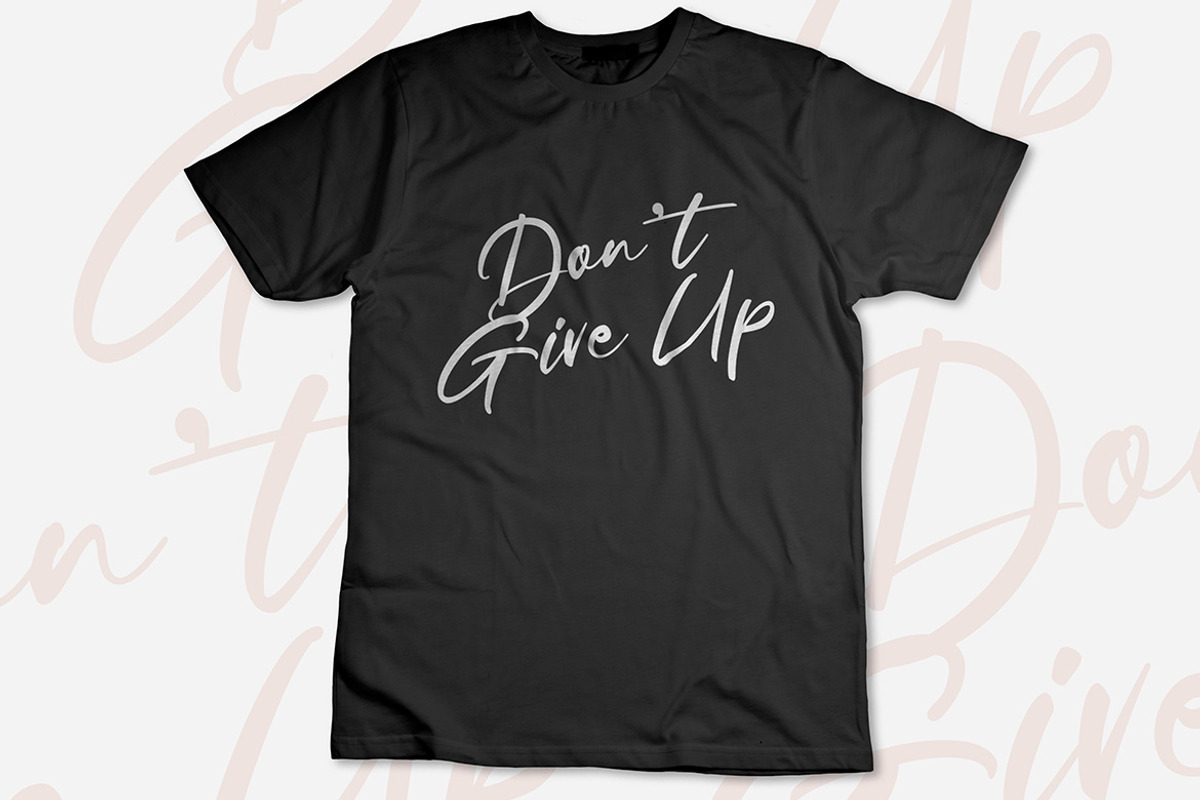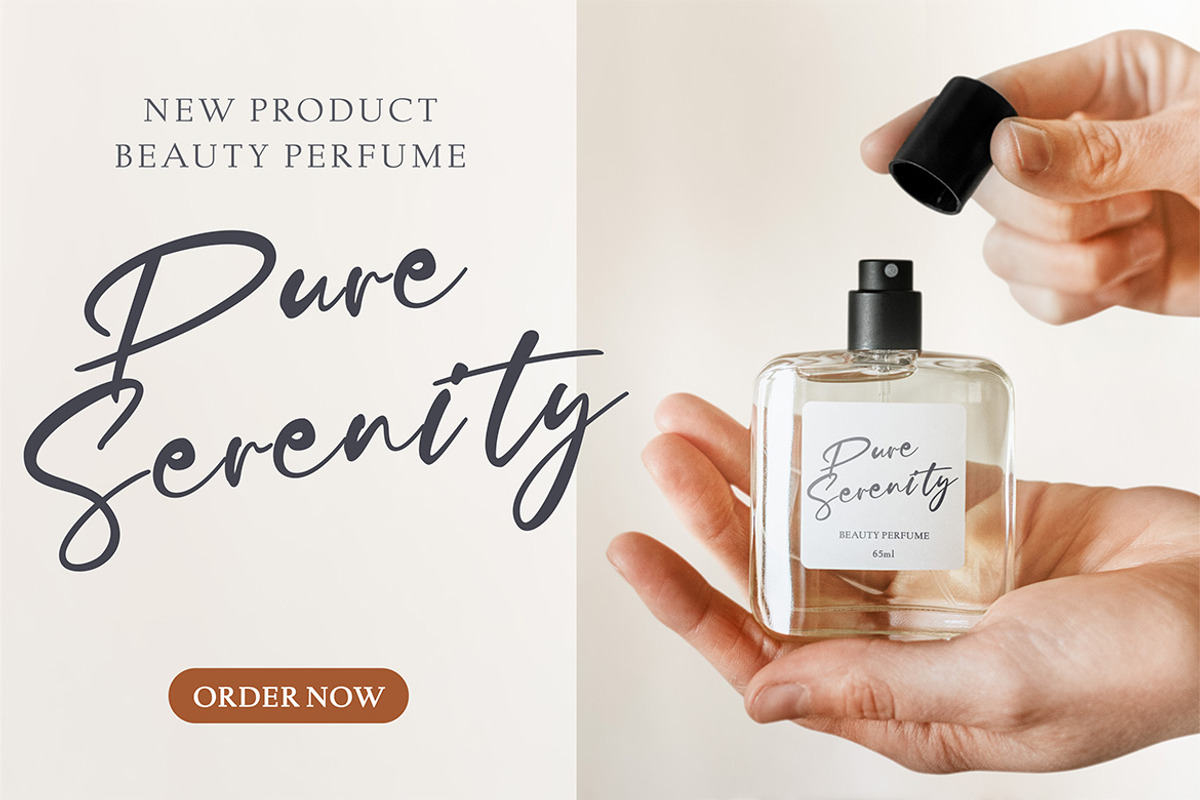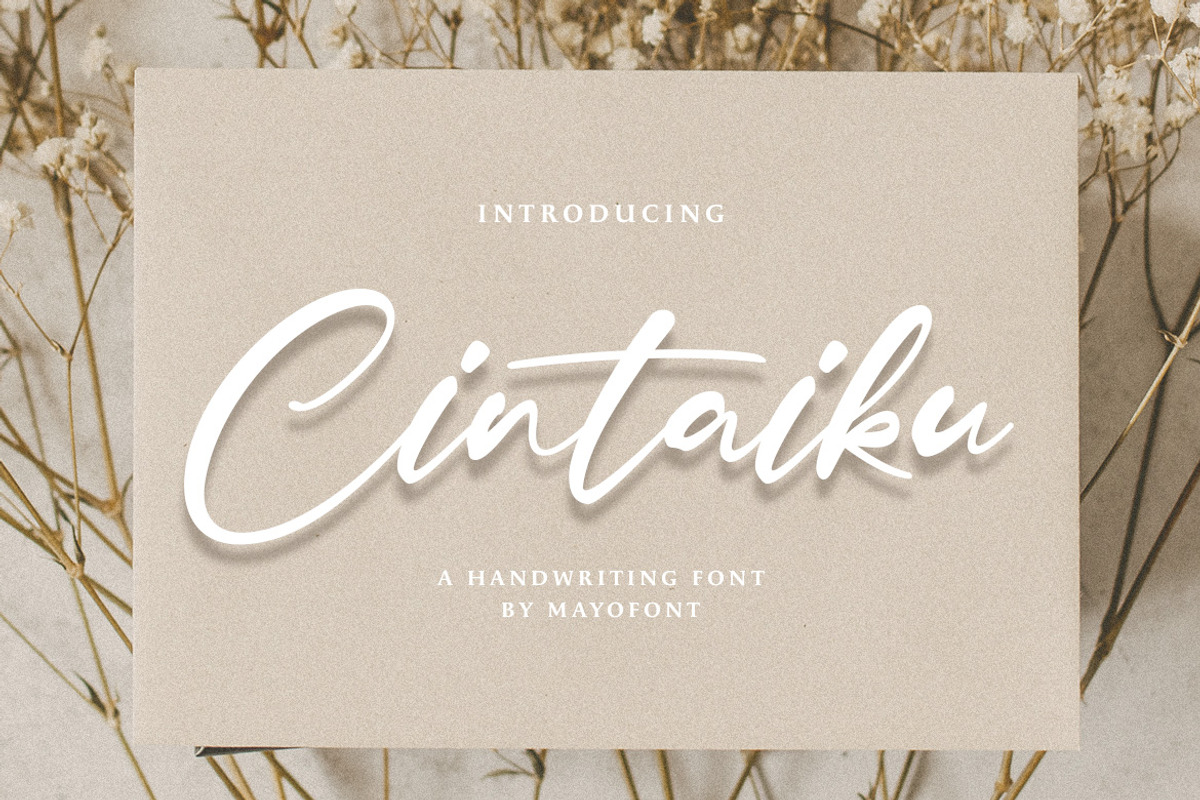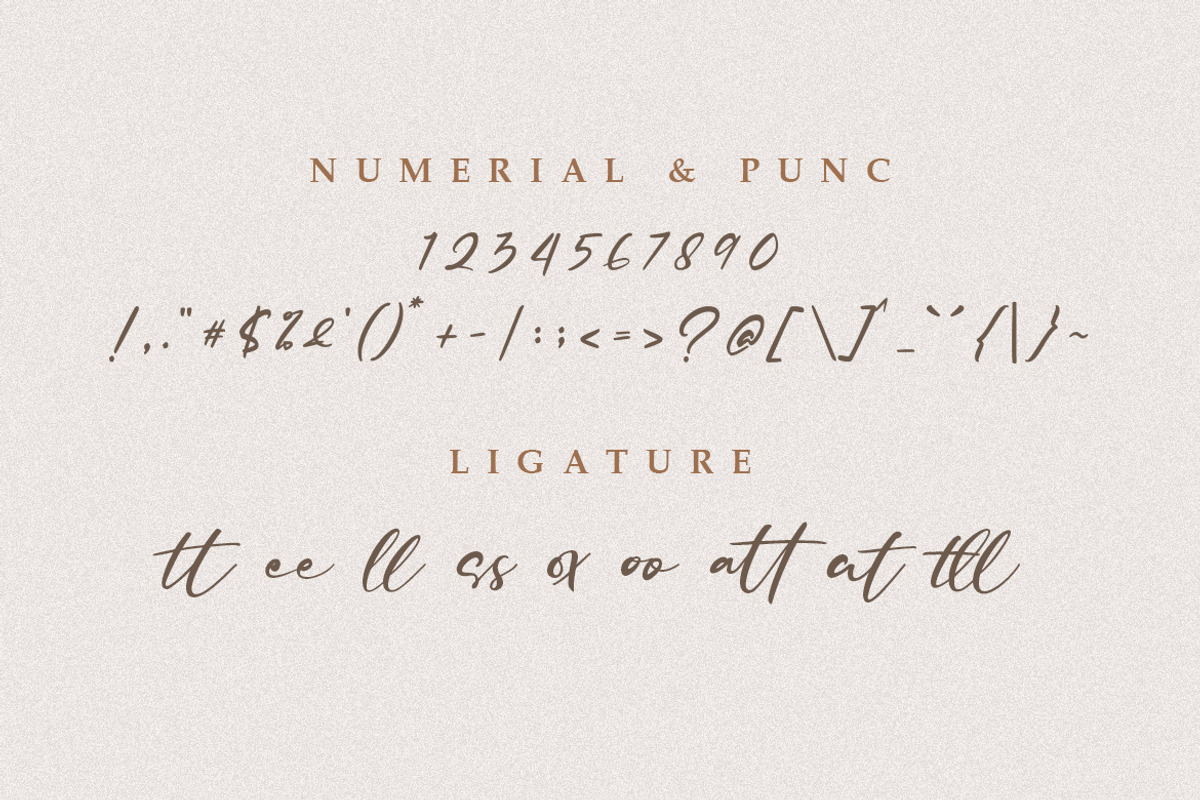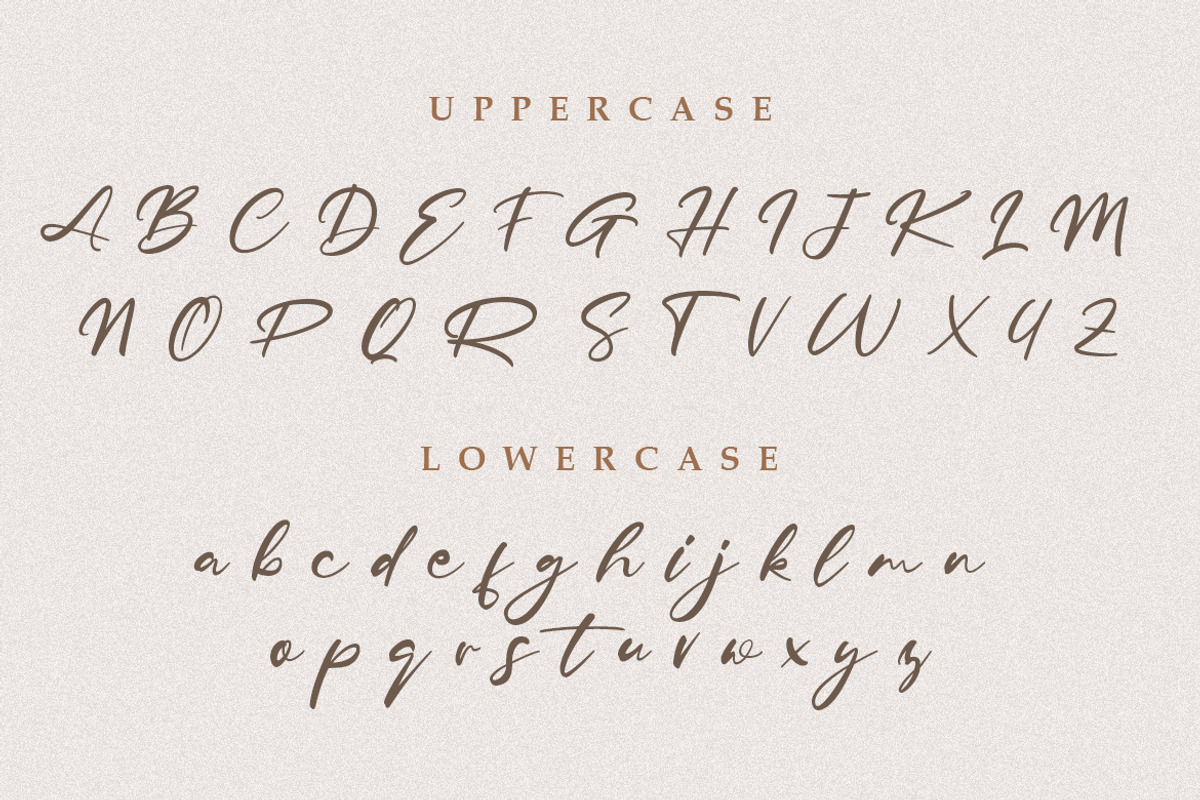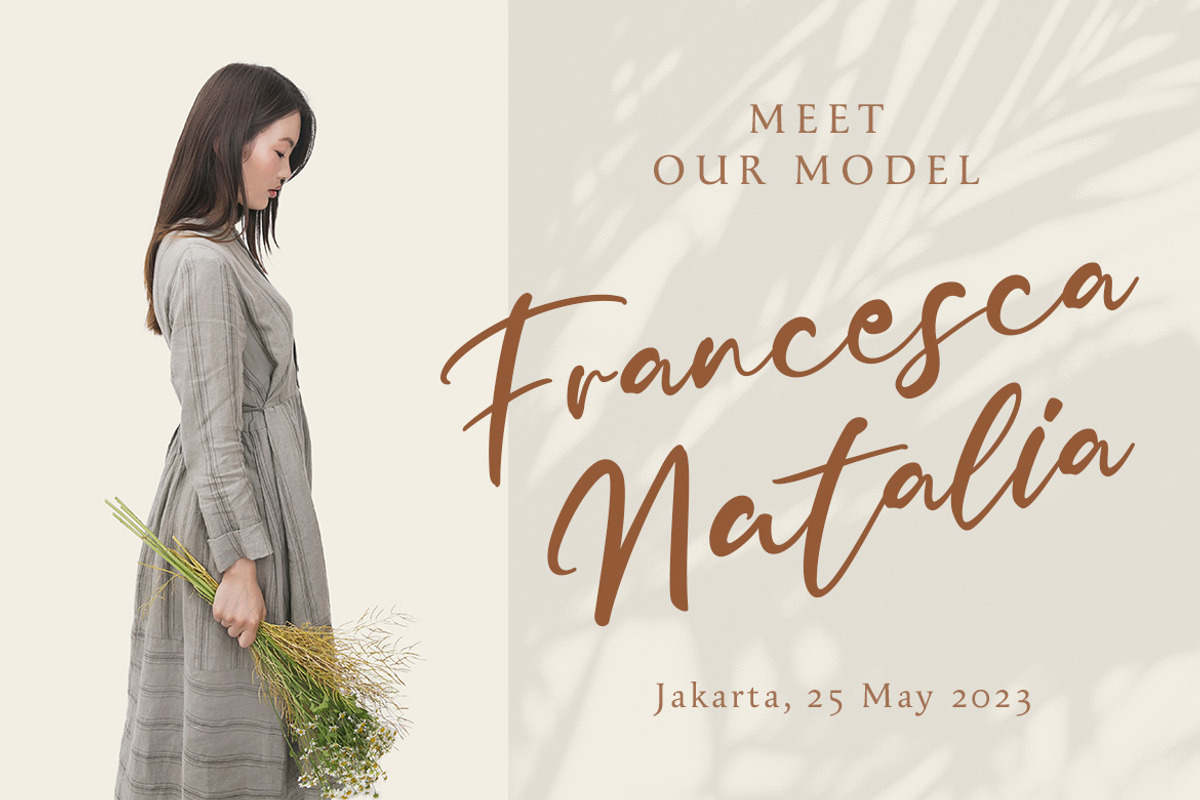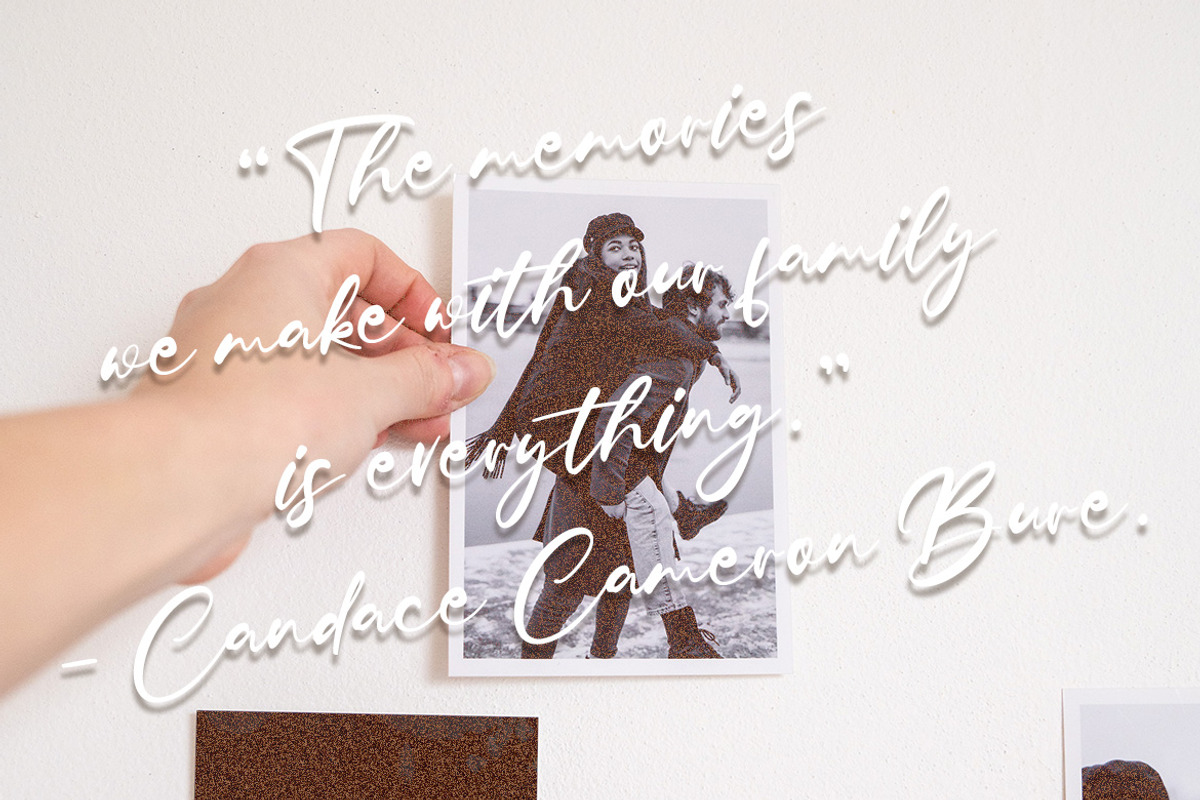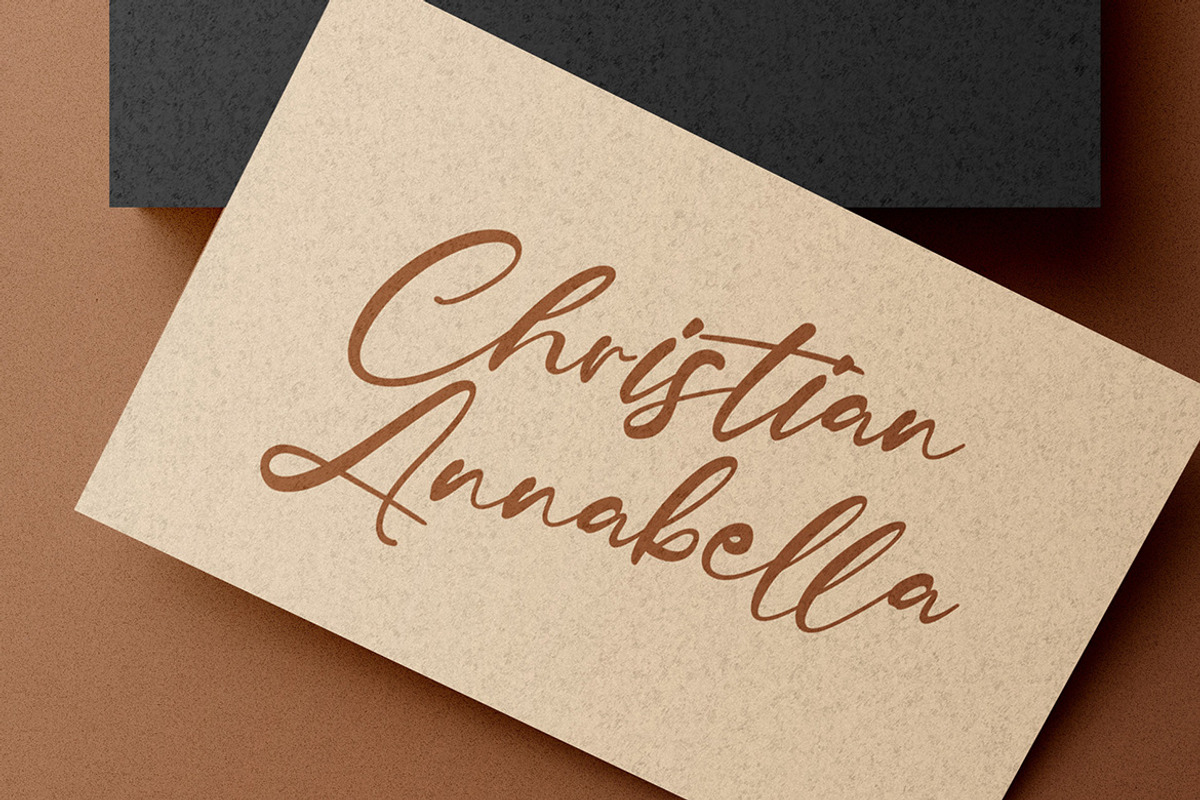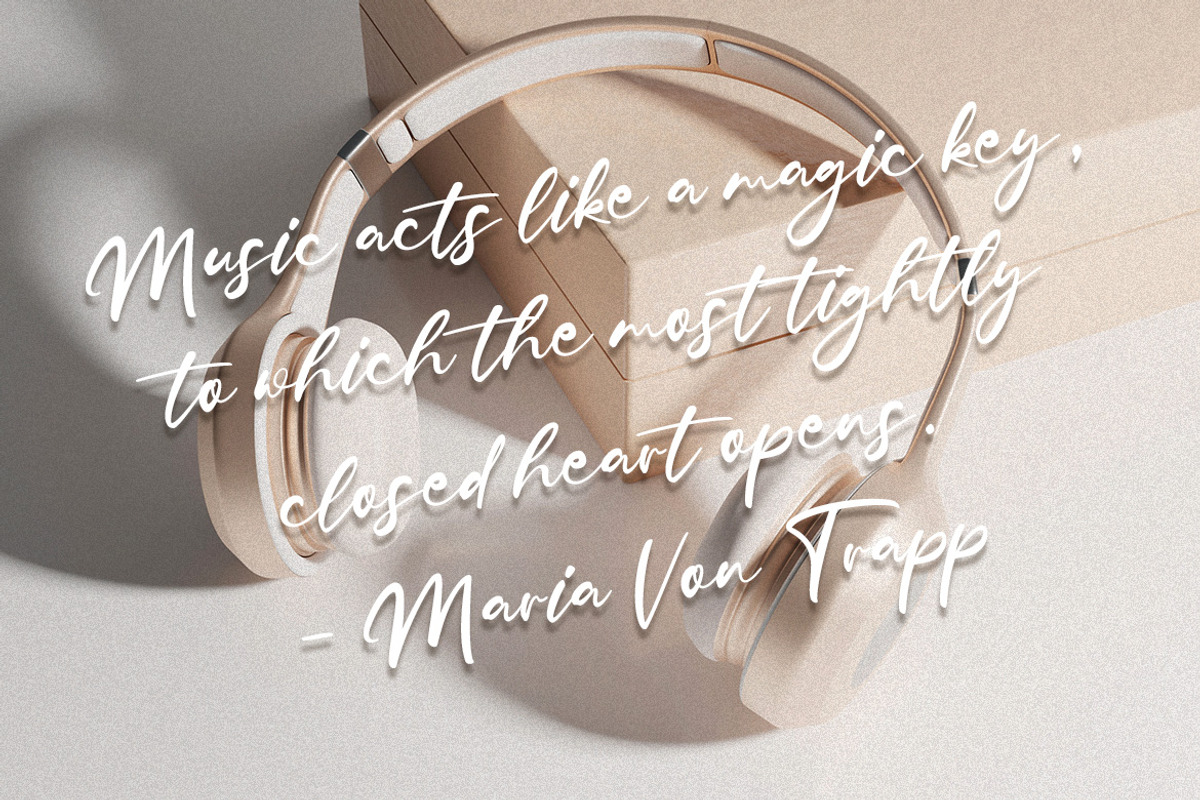
Cintaiku - Handwriting Font
Introducing our captivating font that seamlessly blends the artistry of script and the personal touch of handwriting. This font embodies a harmonious union of elegance and individuality, where every letter is a stroke of artistic brilliance. With its graceful curves and intricate details, it exudes a sense of timeless beauty that captures the essence of handwritten expression. Each character tells a unique story, as if penned with care and passion.
- multilingual support & ligature